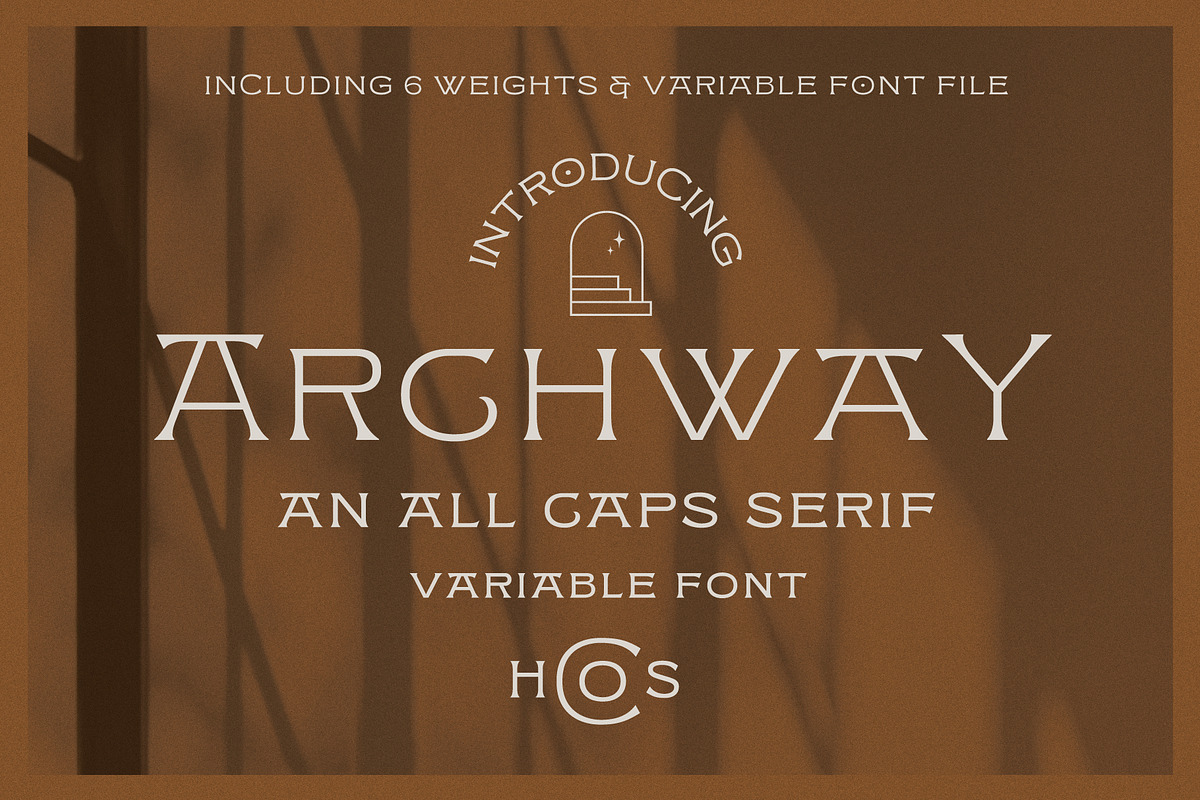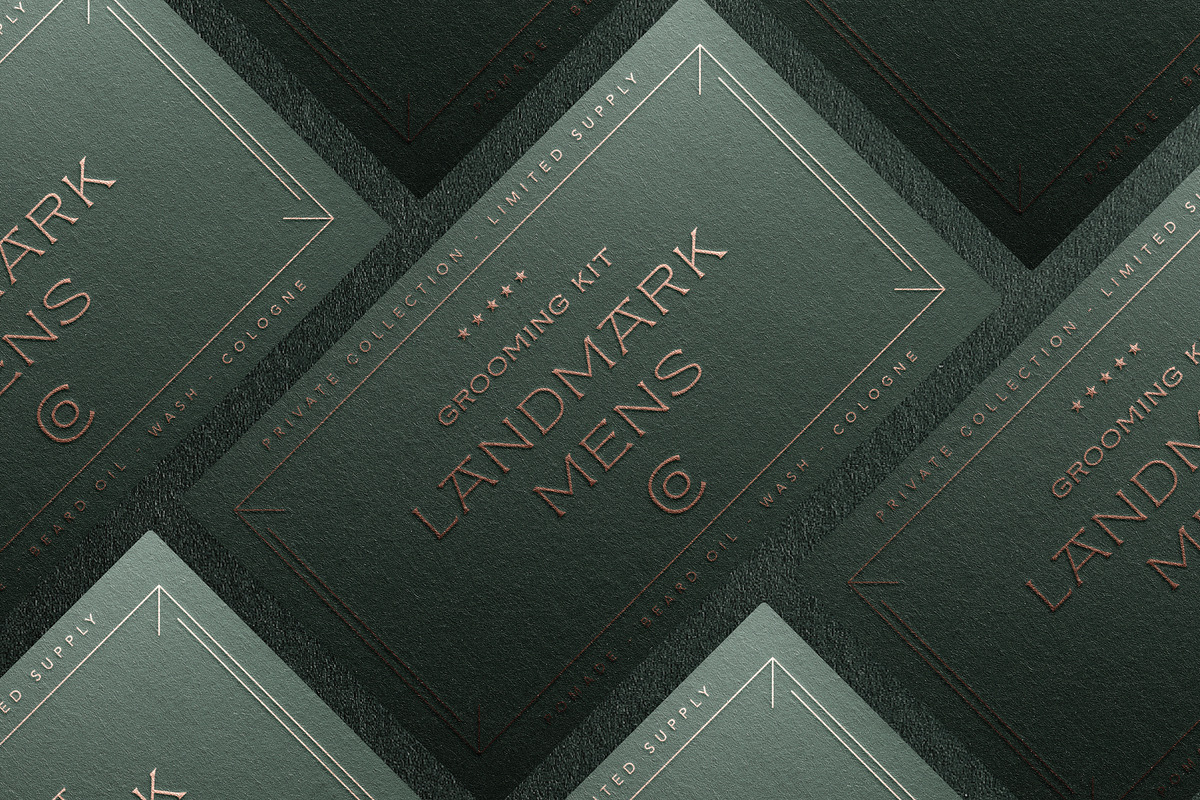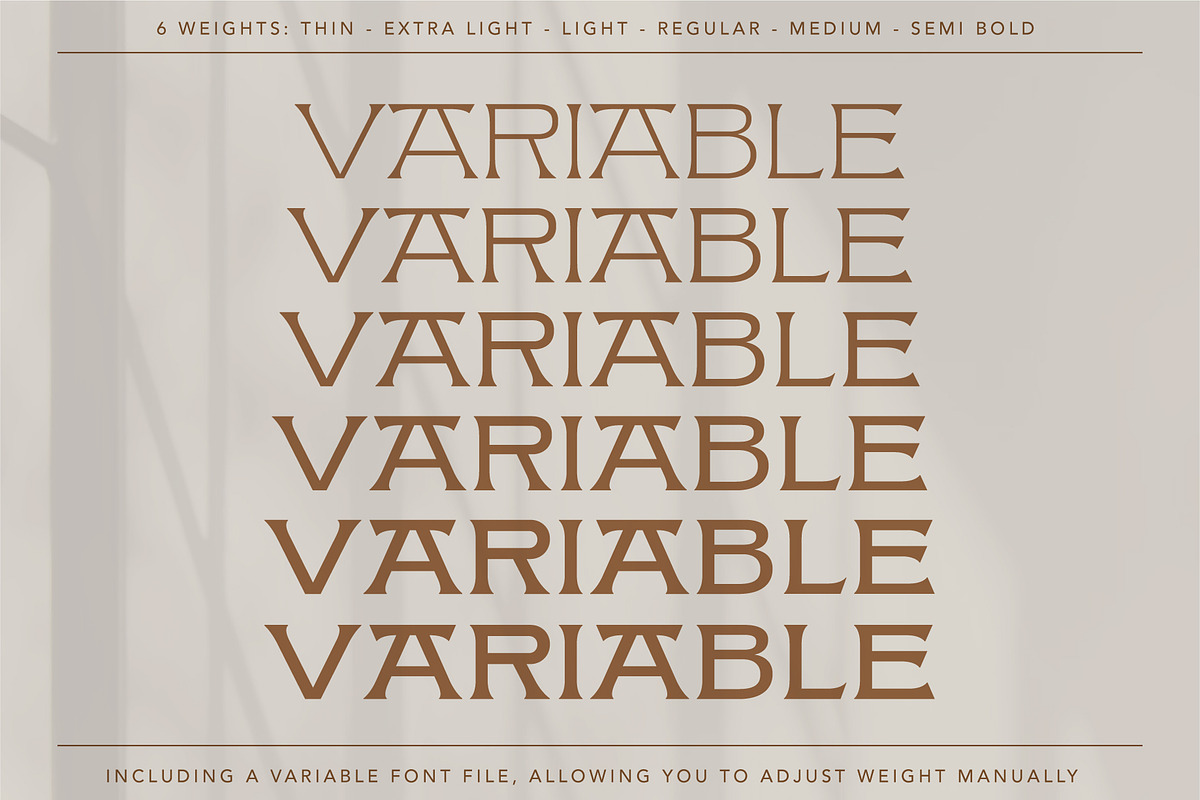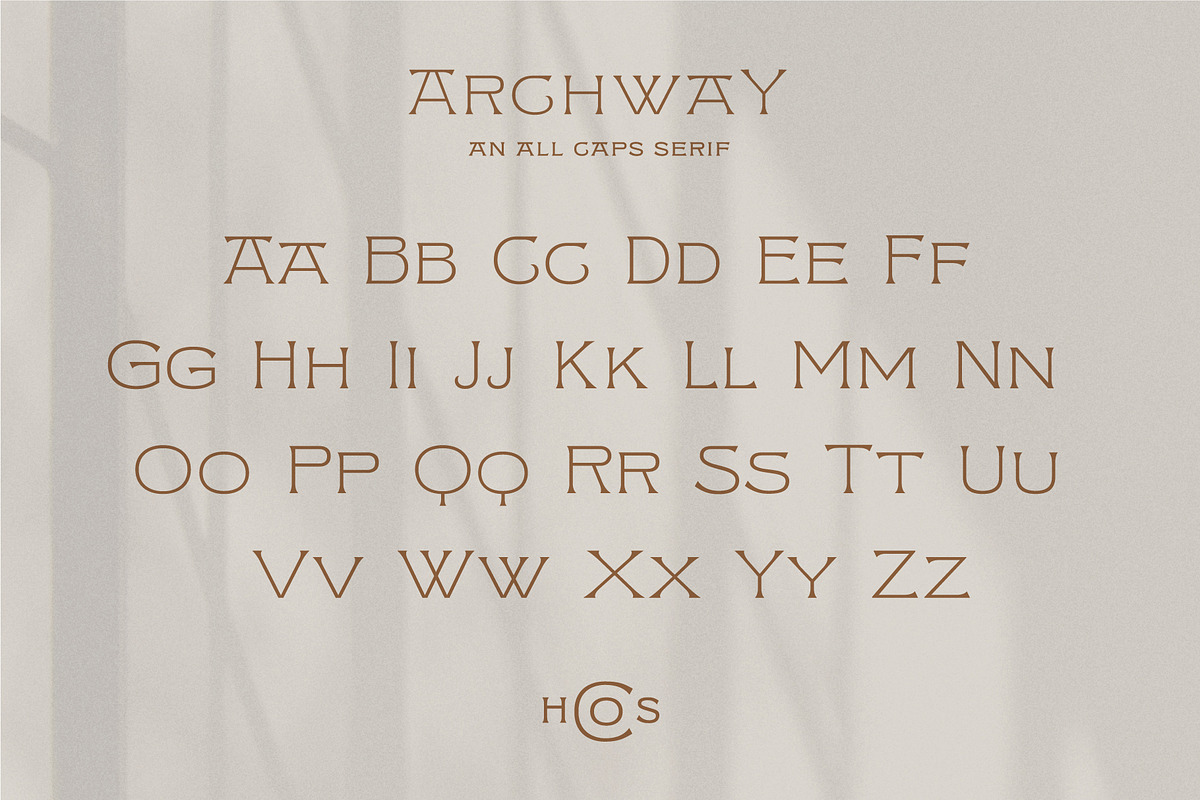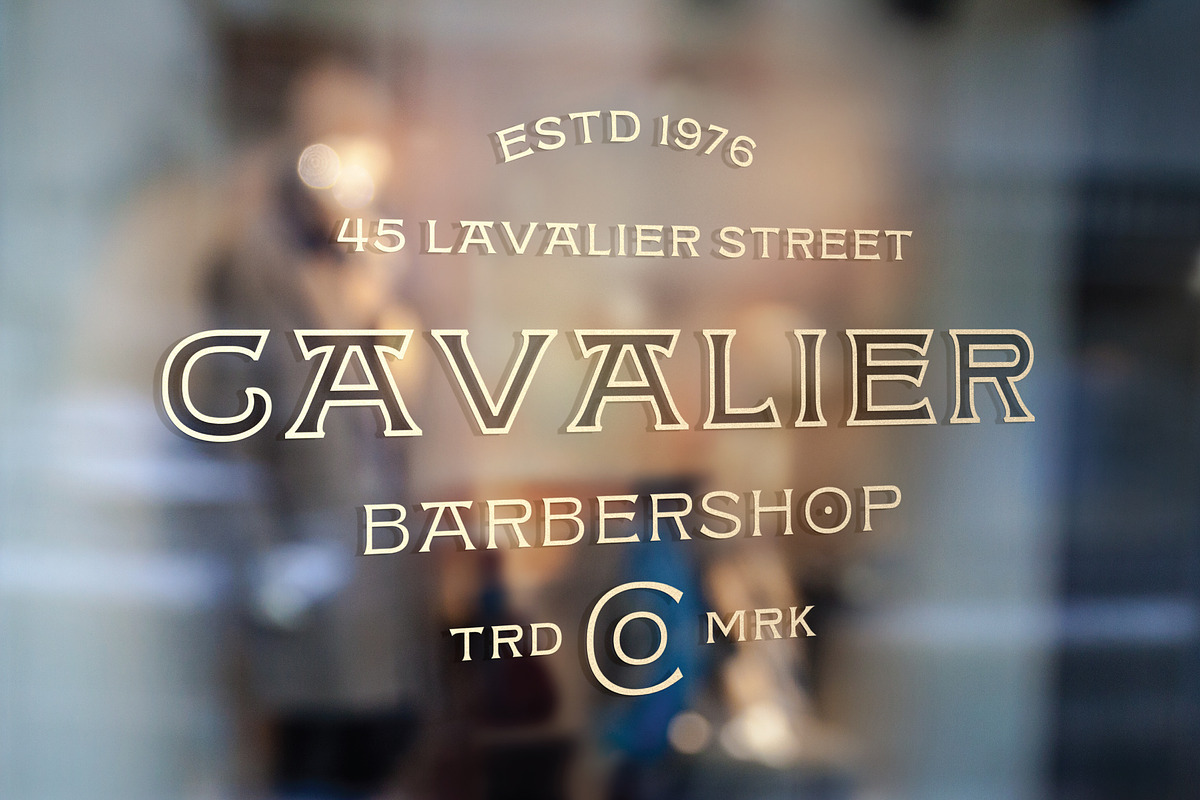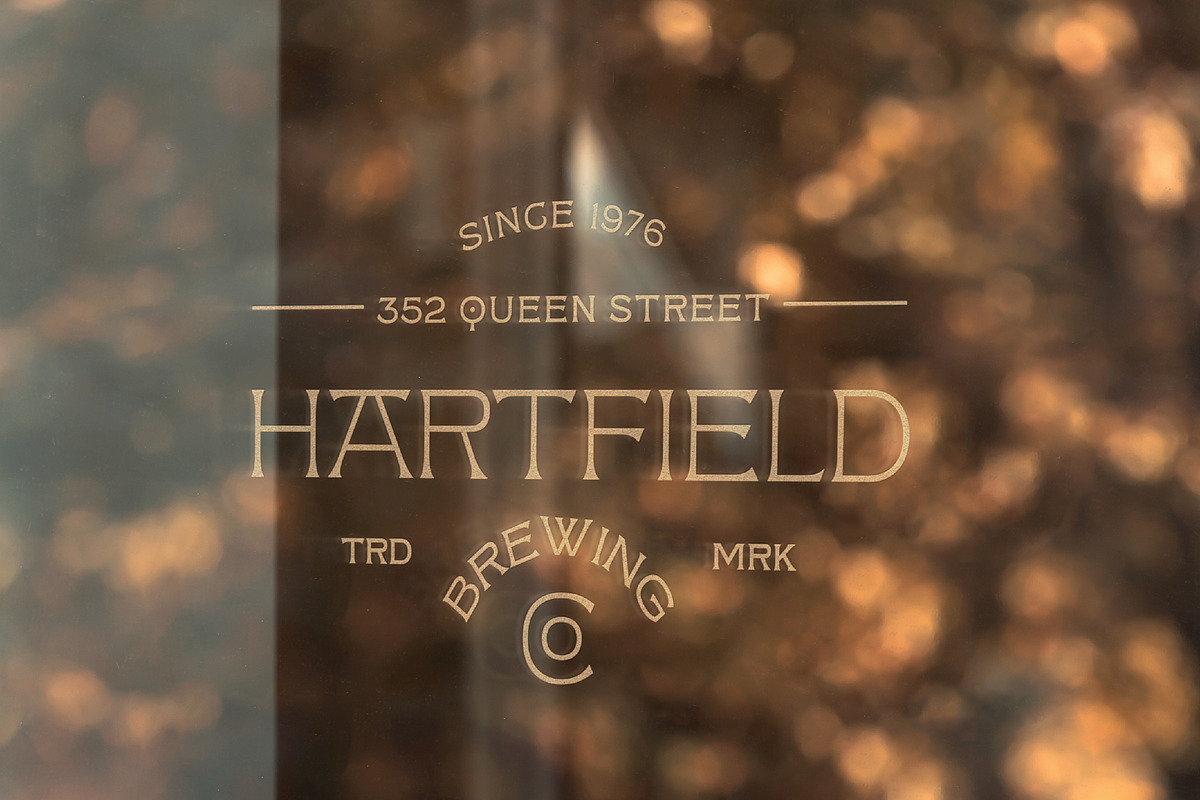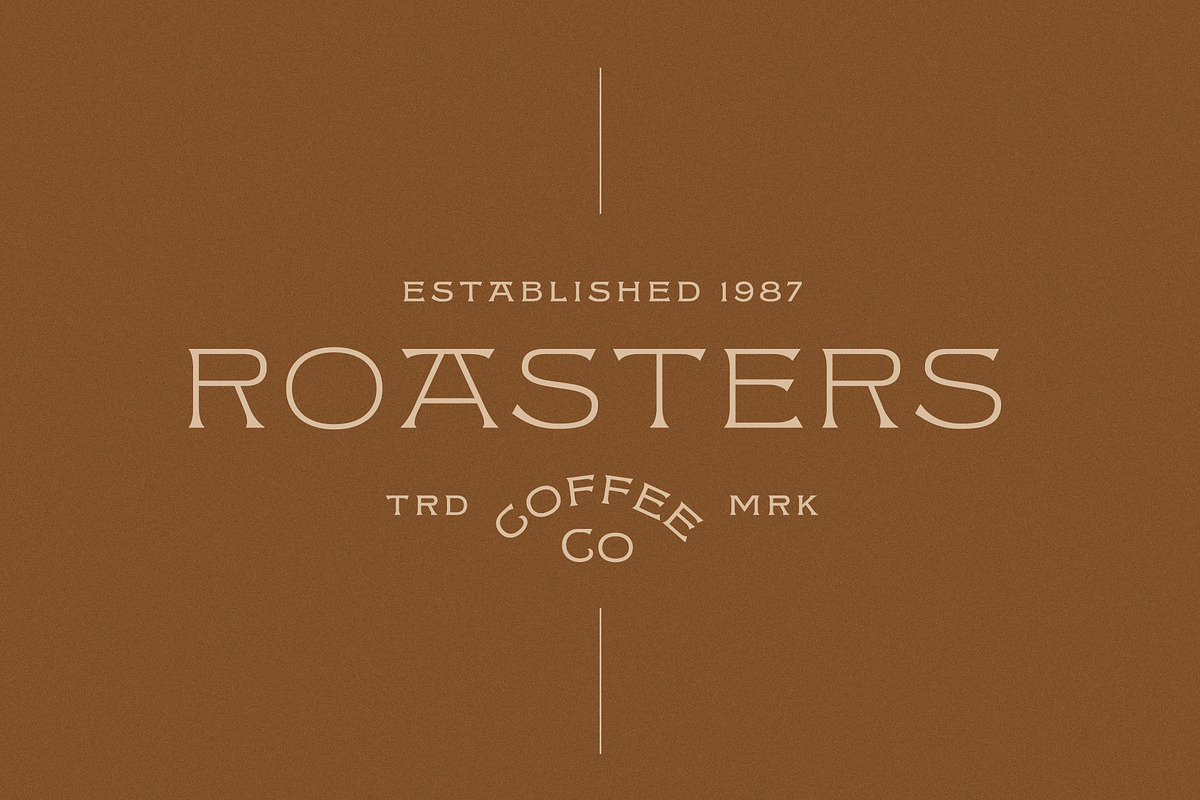
ARCHWAY
Archway
Archway is an all caps serif typeface with both large & small caps in place of uppercase & lowercase characters. This typeface comes with 6 weights and a variable typeface option allowing you to use a toggle to manually adjust the weight of the typeface.